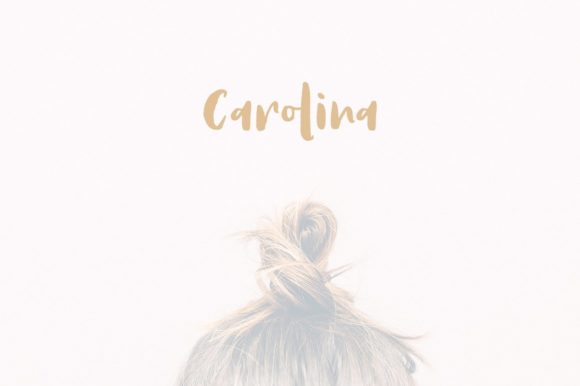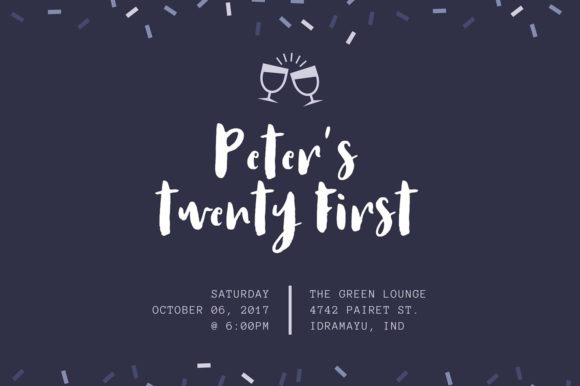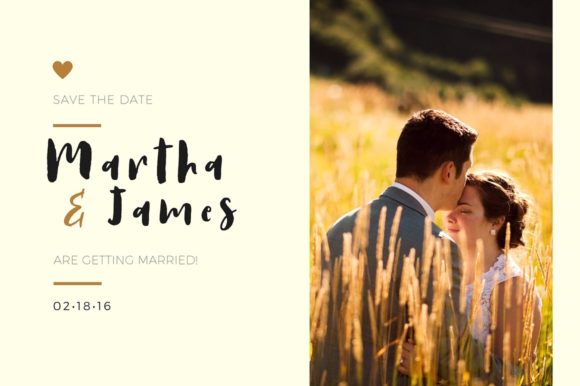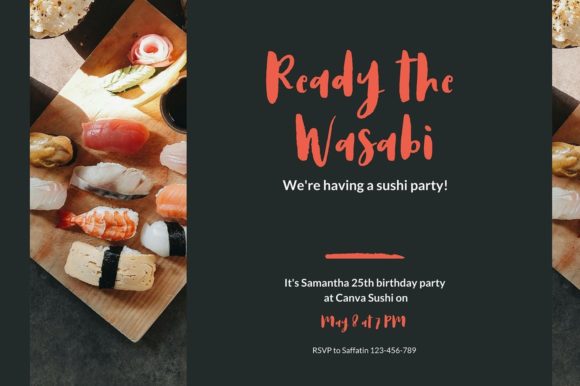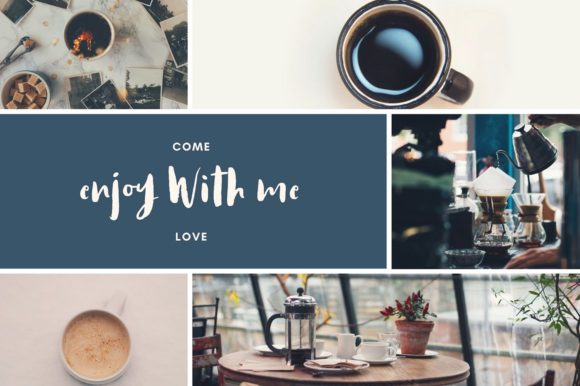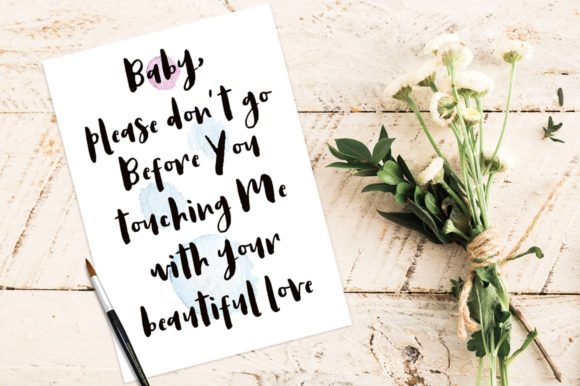
Introducing Antums Font: The Perfect Hand-Drawn Brush Font for Striking Designs
Are you a designer or crafter looking for a unique and fresh font to elevate your designs? Look no further than Antums Font, a hand-drawn brush font that is sure to make your creations stand out. With its distinctive and modern look, Antums Font is perfect for anyone who wants to add a personal touch to their designs.
What is Antums Font?
Antums Font is a hand-drawn brush font that has been carefully crafted to provide a fresh and unique look. Unlike traditional fonts, Antums Font has a distinctive, hand-crafted feel that gives it a personal and artistic touch. The font is perfect for creating striking designs that are sure to grab attention.
Key Features of Antums Font
So, what makes Antums Font so special? Here are just a few of its key features:
- Hand-drawn brush font: Antums Font is a hand-drawn brush font, which gives it a unique and personal feel.
- Unique and fresh look: The font has a distinctive and modern look that is sure to make your designs stand out.
- Perfect for striking designs: Antums Font is perfect for creating striking designs that are sure to grab attention.
Why Choose Antums Font?
So, why should you choose Antums Font for your designs? Here are just a few reasons:
- Add a personal touch: Antums Font allows you to add a personal touch to your designs, making them stand out from the crowd.
- Perfect for creative projects: The font is perfect for creative projects, such as handmade crafts, DIY projects, and more.
- Supports multiple languages: Antums Font supports multiple languages, making it a great choice for designers and crafters who work with international clients.
- High-quality design: The font has been carefully designed to provide a high-quality look that is sure to impress.
Tips for Using Antums Font
Here are a few tips for using Antums Font:
- Use it for headings: Antums Font is perfect for headings and titles, where its bold and striking look can really make an impact.
- Experiment with colors: The font looks great in a variety of colors, so don’t be afraid to experiment and find the perfect color for your design.
- Pair it with other fonts: Antums Font can be paired with other fonts to create a unique and interesting look.
In conclusion, Antums Font is a hand-drawn brush font that is perfect for designers and crafters who want to add a personal touch to their designs. With its unique and fresh look, Antums Font is sure to make your creations stand out. Whether you’re working on a creative project or just want to add a personal touch to your designs, Antums Font is a great choice.